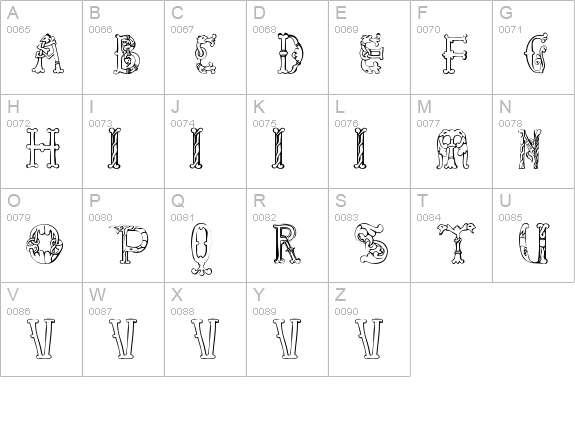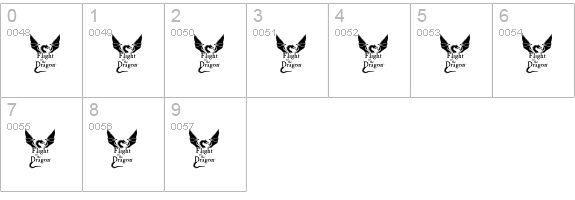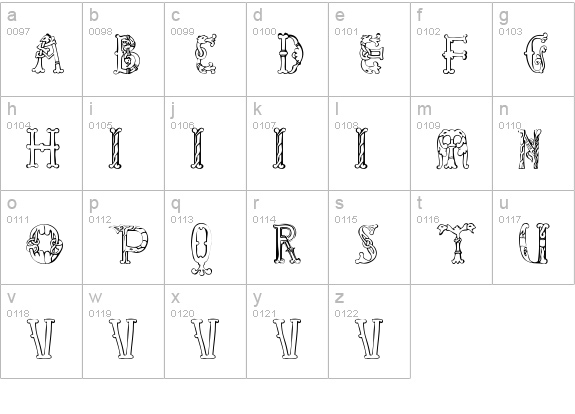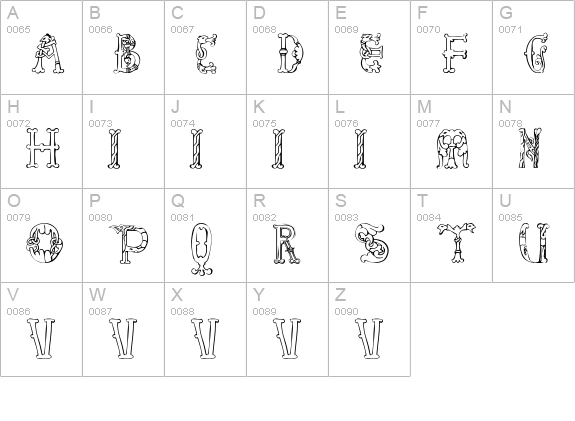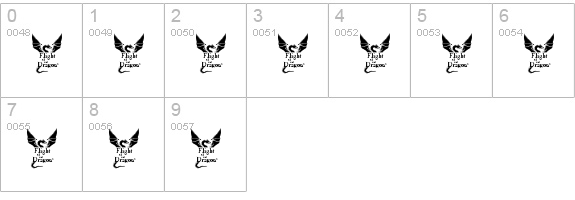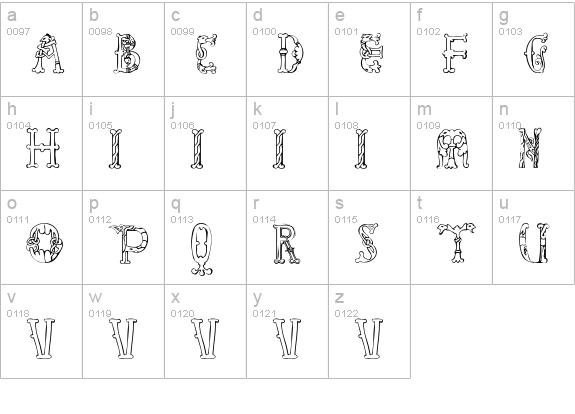
The Library of Minerva font, inspired by the classical elegance of the 9th century, exudes a timeless charm and sophistication. Its intricate details and graceful curves pay homage to the rich history of medieval script while adding a modern touch to any design. The Library of Minerva font is a versatile typeface that can be used for a wide range of projects, from elegant invitations to historical manuscripts. What sets this font apart is not only its historical significance but also its accessibility. Thanks to FontsMarket.com, this exquisite typeface is freely available for download, allowing designers and enthusiasts alike to incorporate its beauty into their creations with ease. Whether you're working on a vintage-inspired project or simply appreciate the artistry of medieval calligraphy, the Library of Minerva font is sure to captivate and inspire. Download it today and bring a touch of ancient grandeur to your designs.